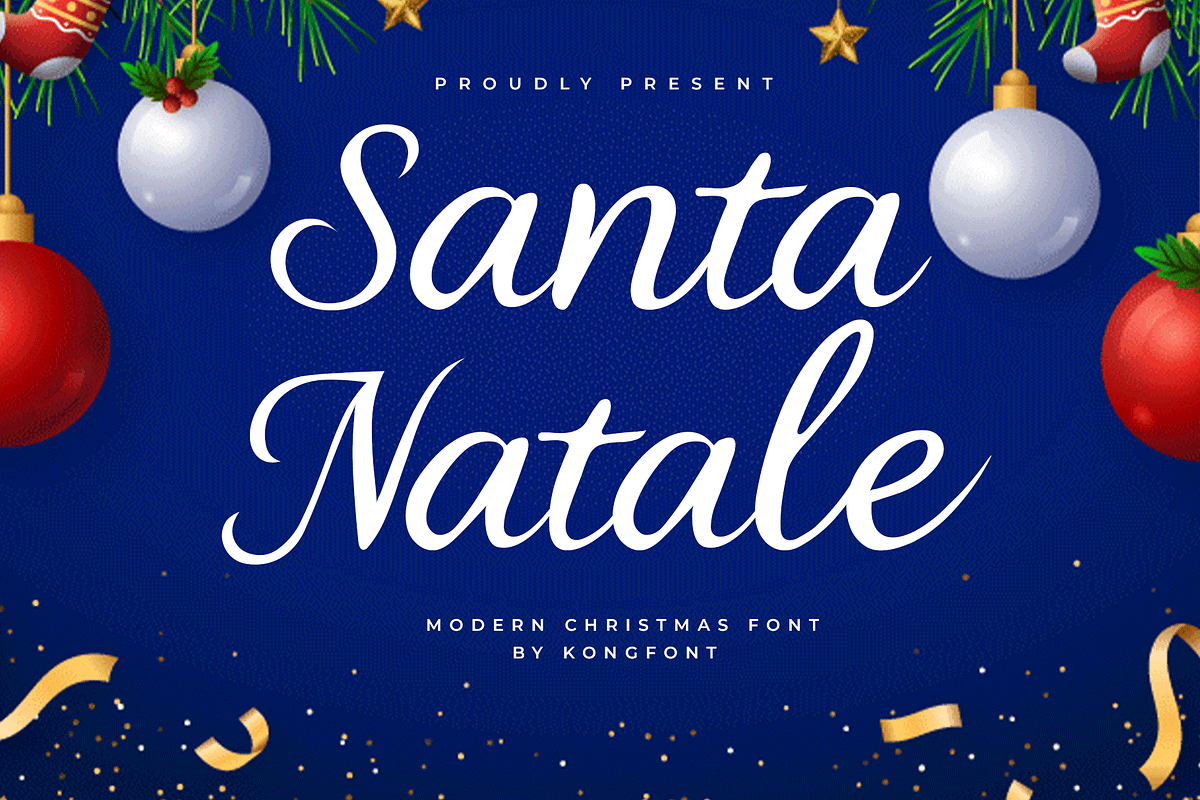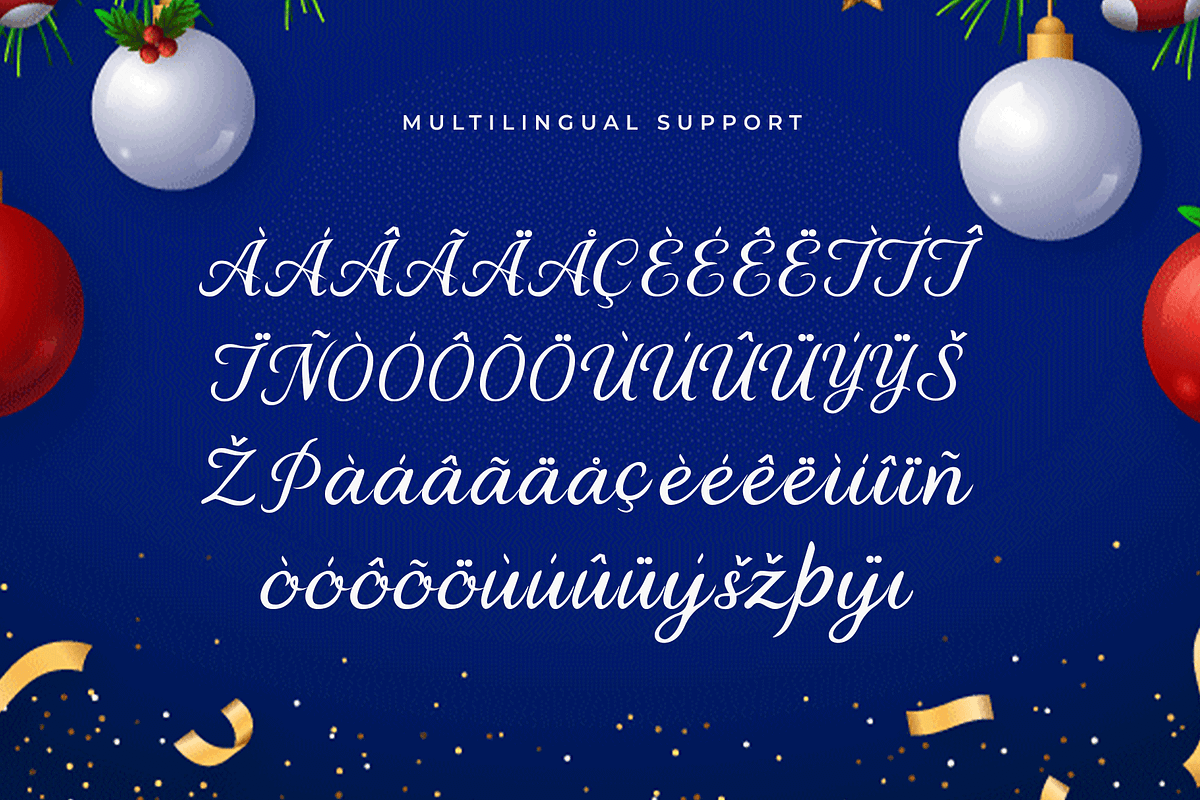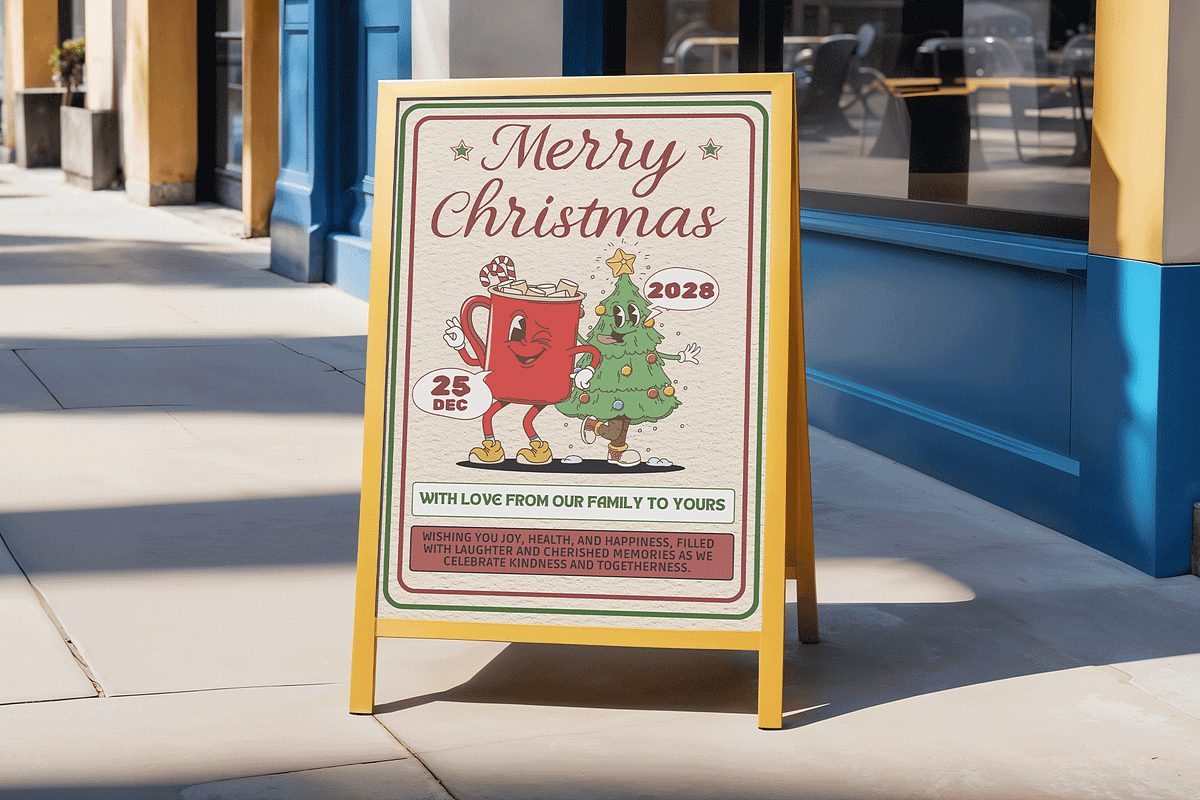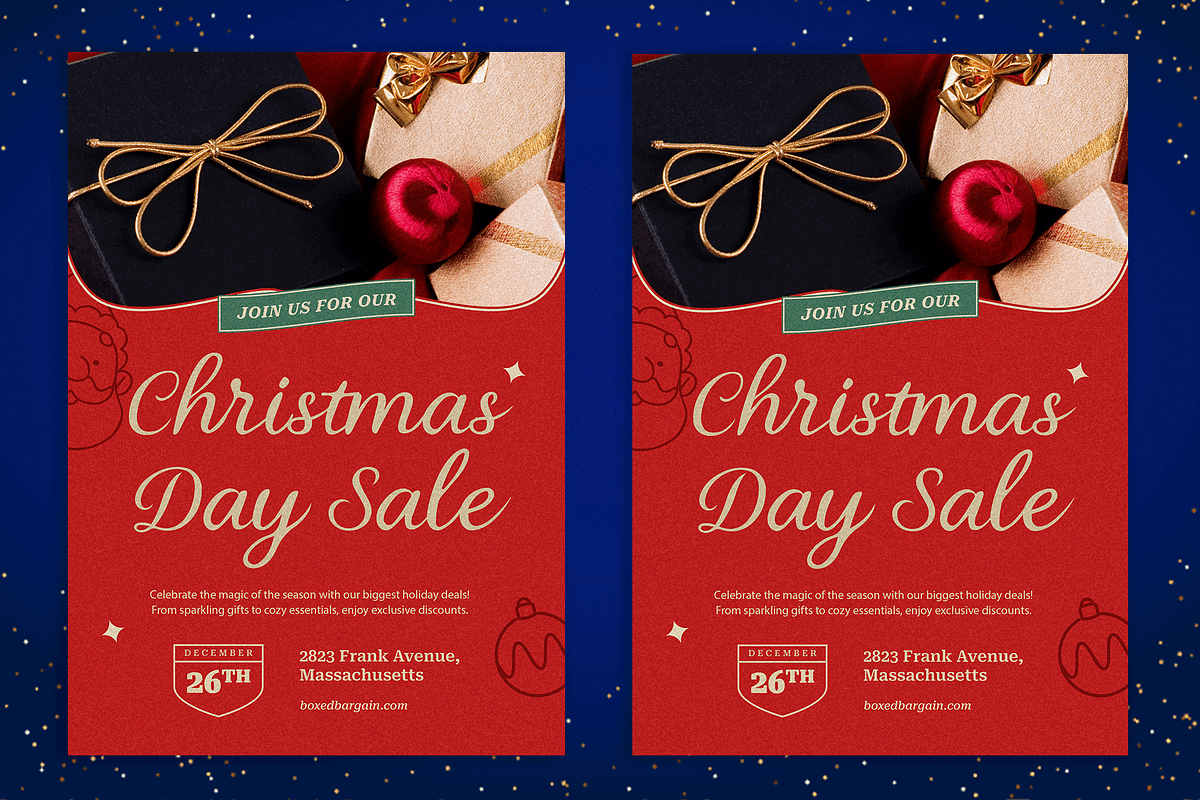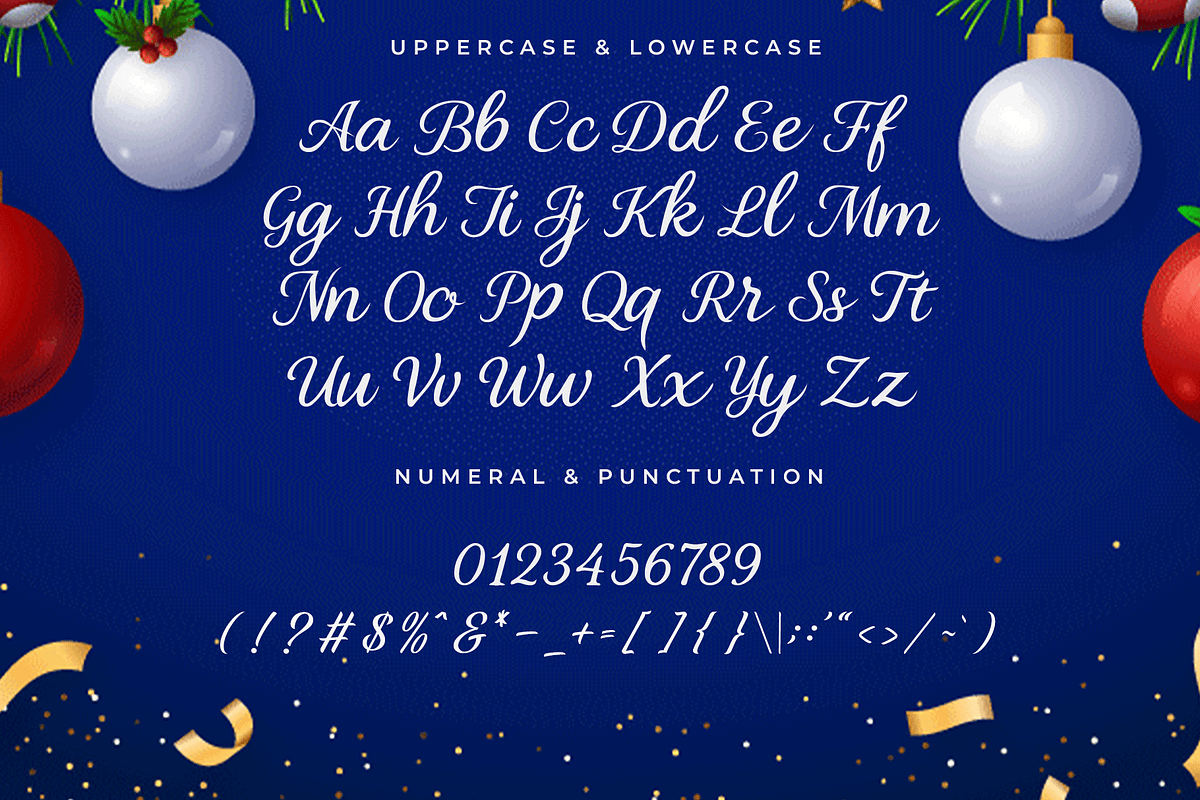
Santa Natale – Modern Christmas Font
Santa Natale is a modern Christmas font designed to bring warmth and joy to your holiday projects. With its playful yet elegant style, this font captures the magic of the season, making it perfect for festive designs that spread cheer and happiness.
Ideal for Christmas cards, holiday invitations, gift packaging, posters, branding, social media graphics, and seasonal merchandise, Santa Natale adds a delightful charm to every project. Its versatile design ensures it works beautifully across both digital and print media.
The font includes uppercase, lowercase, numbers, punctuation, and multilingual support, giving you creative flexibility to customize your holiday designs with ease.